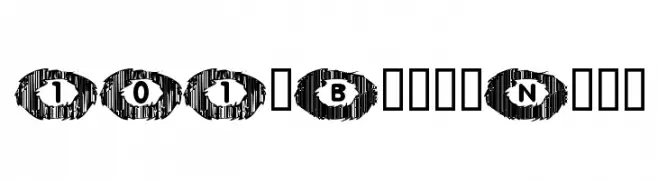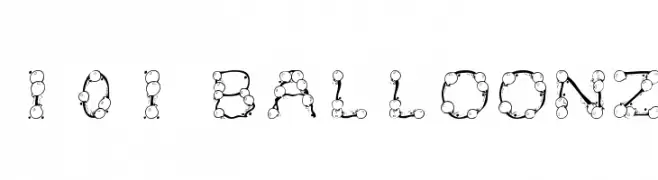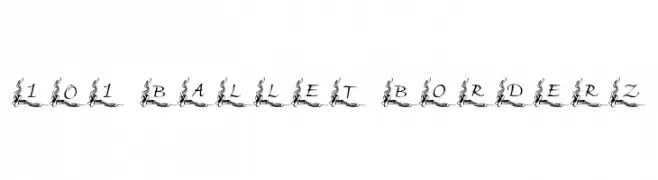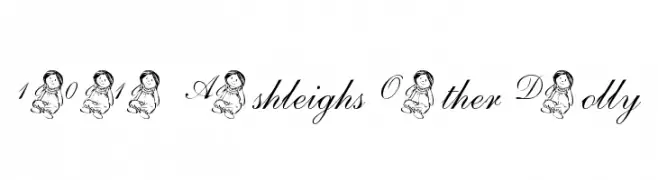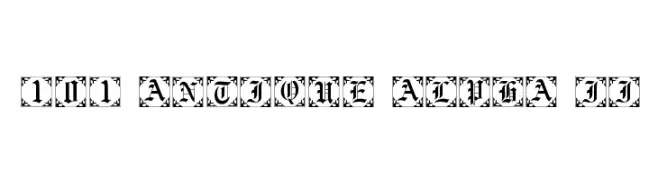
A decorative font with uppercase letters and numbers in a bird's nest style.
A decorative font with a barcode-inspired design, featuring characters enclosed in rectangular frames.
A playful, balloon-inspired decorative font with interconnected circular shapes.
An elegant, decorative font with intricate vine-like borders around each character.
A decorative font with characters embedded in grand piano silhouettes, ideal for music-themed designs.
A whimsical script font with decorative doll illustrations on uppercase letters and numerals.
A playful font with doll illustrations integrated into each character.
A bold, decorative font with an icy, winter-themed design.
A decorative blackletter font with ornate, boxed characters and high contrast.
An ornate, blackletter-style font with decorative floral frames.